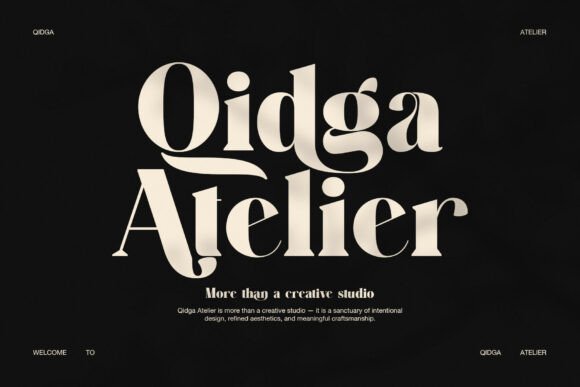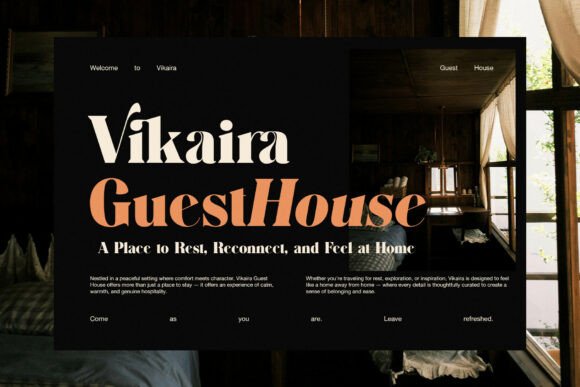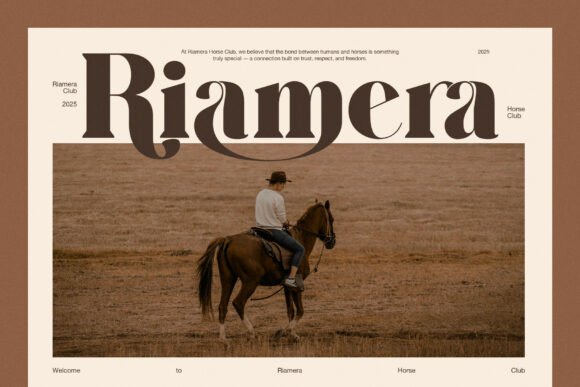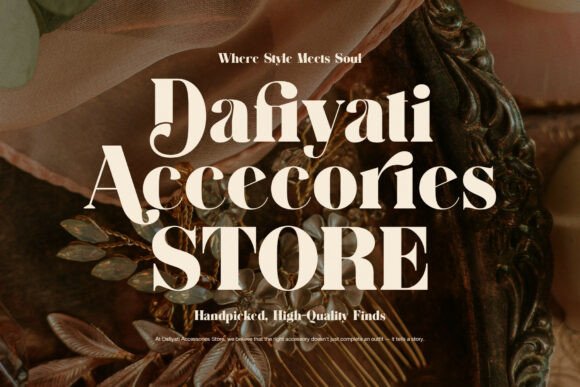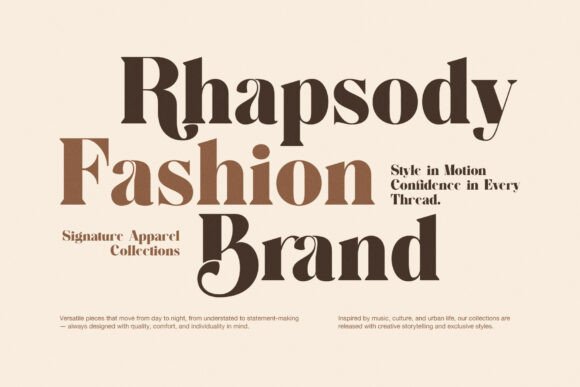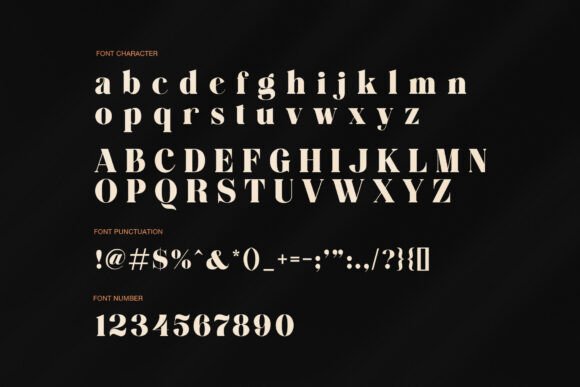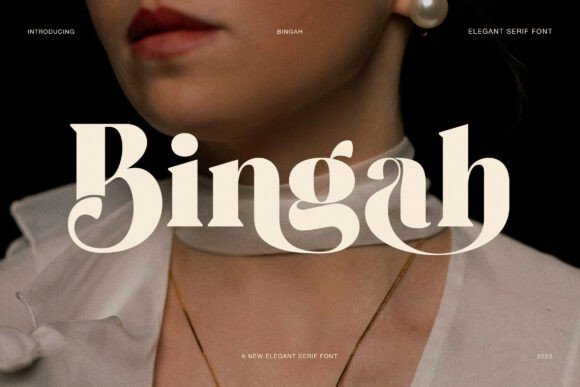
Bingah Font: Elevate Your Designs with Elegance and Sophistication
In the world of typography, a well-crafted font can make all the difference in conveying the intended message and aesthetic of a design. For those seeking a font that embodies refinement, confidence, and timeless beauty, look no further than Bingah. This elegant serif display font strikes a perfect balance between classic typography and modern visual rhythm, making it an excellent choice for designers and crafters alike.
The Essence of Bingah
Bingah is more than just a font; it’s a statement piece. From the first glance, its sculpted curves and expressive contrast evoke a sense of artistic sophistication. The font’s design is characterized by its refined lines, precise craftsmanship, and a keen attention to detail. Whether you’re working on a luxury brand logo, a high-end product packaging, or an elegant wedding invitation, Bingah is sure to make a lasting impression.
Key Features of Bingah
- Elegant Serif Design: Bingah boasts a classic serif design with a modern twist, making it perfect for projects that demand a touch of sophistication.
- Expressive Contrast: The font’s carefully crafted contrast between thick and thin strokes adds depth and visual interest to any design.
- Sculpted Curves: Bingah’s smooth, flowing curves bring a sense of elegance and fluidity to your typography.
- Timeless Beauty: Unlike trendy fonts that may quickly go out of style, Bingah’s classic design ensures it remains relevant for years to come.
What Makes Bingah Stand Out
In a sea of fonts, Bingah stands out for its unique blend of classic and modern elements. Its artistic yet professional feel makes it versatile enough to be used in a variety of contexts, from editorial design and advertising to branding and packaging. Whether you’re aiming to evoke a sense of luxury, sophistication, or refinement, Bingah provides the perfect foundation for your creative projects.
Using Bingah in Your Designs
- Pair with Simplicity: Let Bingah be the focal point by pairing it with simpler fonts or design elements.
- Experiment with Sizes: Take advantage of Bingah’s versatility by using it in various sizes to create visual hierarchy.
- Play with Colors: While Bingah looks stunning in classic black and white, don’t be afraid to experiment with colors that complement its elegant feel.
Who Can Benefit from Bingah
Bingah is a valuable asset for a wide range of designers and crafters, including:
- Graphic Designers: Looking for a sophisticated font to elevate their branding and advertising projects.
- Wedding and Event Planners: Seeking elegant typography for invitations, menus, and other event materials.
- Packaging Designers: Needing a font that conveys luxury and quality for high-end product packaging.
- Stationery and Journal Designers: Aiming to add a touch of refinement to their notebooks, journals, and stationery sets.
Bingah is more than just a font; it’s a tool for designers and crafters to express elegance, confidence, and timeless beauty in their work. Its unique blend of classic typography and modern visual rhythm, combined with its sculpted curves and expressive contrast, make it a standout choice for those looking to elevate their designs. Whether you’re working on a luxury brand project, a wedding invitation, or any other design that demands sophistication, Bingah is sure to deliver.
Discover the power of Bingah and let it be the key to unlocking a new level of elegance and sophistication in your designs.